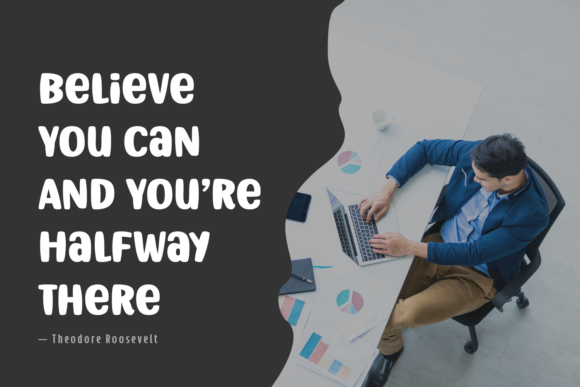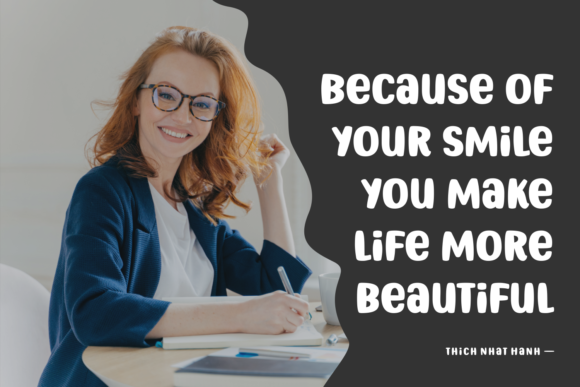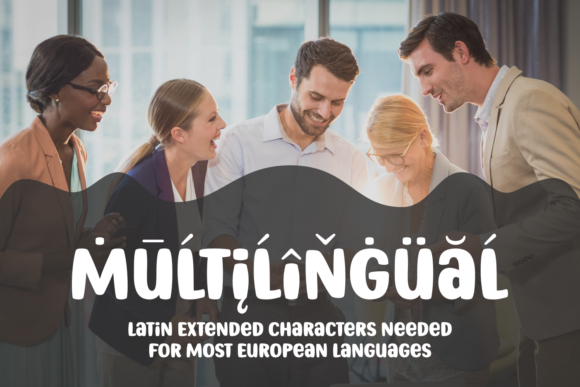
Introduction to Megina Font
Megina is a trendy and thick lettered display font.
Whether youโ€™re looking for fonts for Instagram or calligraphy scripts for DIY projects, this font will turn any creative idea into a true piece of art .
Key Features of Megina Font
Why Choose Megina Font?
Megina Font offers exceptional quality and versatility, making it a valuable addition to your design toolkit. Whether you’re creating for personal projects or commercial use, Megina Font delivers professional results.